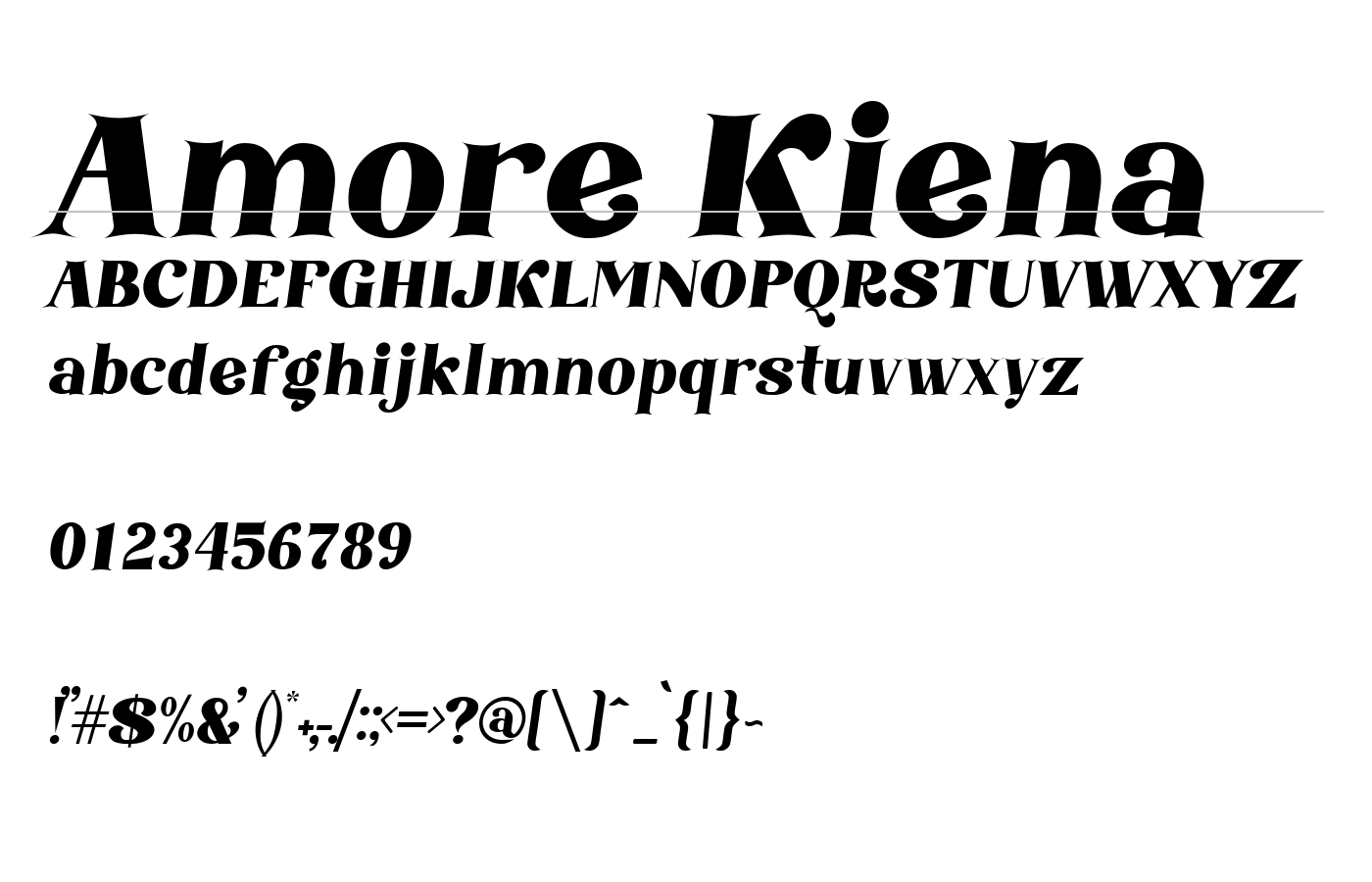
Amore Kiena is a bold serif font with strong contrast between thick and thin strokes, featuring sharp, slightly flared serifs that give it a sophisticated and dramatic feel. Its elegant letterforms, including distinctive single-story characters and stylized terminals, make it ideal for luxury branding, editorial headlines, and fashion-related designs where a confident and refined presence is desired. This font works well in large sizes to showcase its dynamic personality and detailed structure.
Amore Kiena Font
About Amore Kiena Font